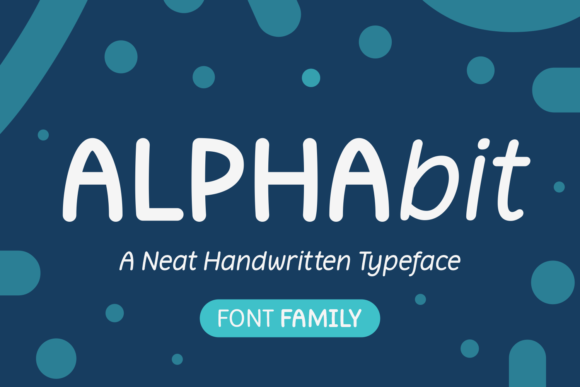
Introducing Alphabit - a captivating handwritten font family expertly designed by Situjuh. This exquisite font will empower you to craft a profound visual impact that will leave your audience spellbound. Alphabit isn't just a font; it's an artistic expression, an enchanting symphony of curves and strokes that will elevate your designs to new heights.
Immerse yourself in the boundless possibilities of Alphabit. Its flawlessly flowing lines and captivating glyphs unravel a world of creative freedom, inviting you to weave tales of beauty and enchantment. Whether you seek to craft alluring logos, mesmerizing branding, or heartfelt quotes, Alphabit will serve as your steadfast companion, guiding you towards design brilliance.
But what truly sets Alphabit apart is its profound understanding of the written word. Each letter is meticulously crafted, imbued with a unique charm and elegance that will make your text dance off the page with captivating allure. Alphabit is more than just a font; it's a gateway to a world of creative expression, where words transform into works of art.
If you crave a font that will ignite your imagination and captivate your audience, Alphabit is the answer. Its versatility knows no bounds, effortlessly adapting to a myriad of design styles. From the delicate grace of wedding invitations to the bold charisma of magazine covers, Alphabit will effortlessly elevate your creations, leaving an unforgettable impression on all who behold it.
With Alphabit, you'll discover a font that is both timeless and contemporary, a font that will endure the ever-changing tides of design trends. Its enduring charm will ensure that your creations remain as captivating and alluring as the day you first breathed life into them.
So why settle for ordinary fonts when you can embrace the extraordinary? Choose Alphabit today and embark on a creative journey that will redefine your design destiny. Let your imagination soar on the wings of this enchanting font, and create masterpieces that will leave an indelible mark on the world.